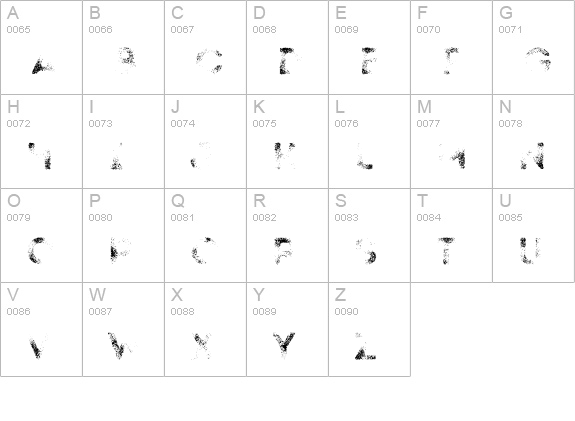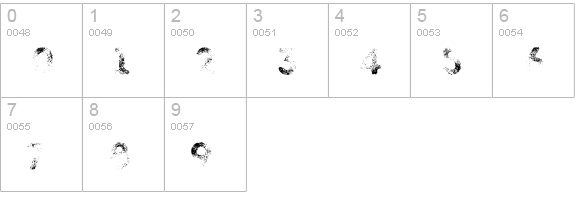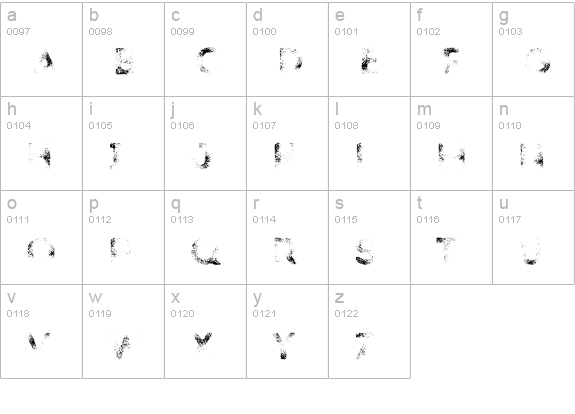
Intro Rust G Fill Font Details
Intro Rust G Fill font is a versatile and eye-catching typeface that exudes a sense of modernity and creativity. With its bold and intricate design, this font is perfect for making a statement in any project. The unique fill style adds depth and visual interest to your text, making it stand out from the crowd. What sets Intro Rust G Fill font apart is not only its striking appearance but also the fact that it is available for free download at FontsMarket.com. This means that you can easily access this stunning font without any cost, making it a valuable addition to your design toolkit. Whether you're working on branding, packaging, posters, or any other creative project, Intro Rust G Fill font is sure to make a bold impression.